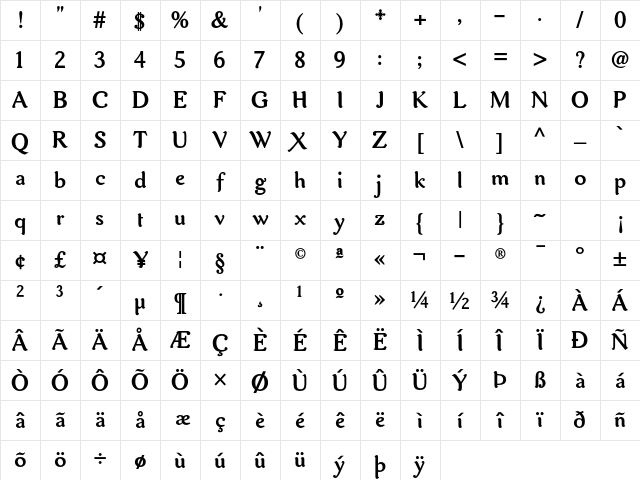
Complete Aurelis ADF No2 Std Bold glyph index. Displaying only characters natively supported by Aurelis ADF No2 Std Bold font.
Aurelis ADF No2 Std is a composed and adaptable typeface that performs quietly and consistently across a wide range of design contexts. Its bold stroke weight gives it real presence on the page.